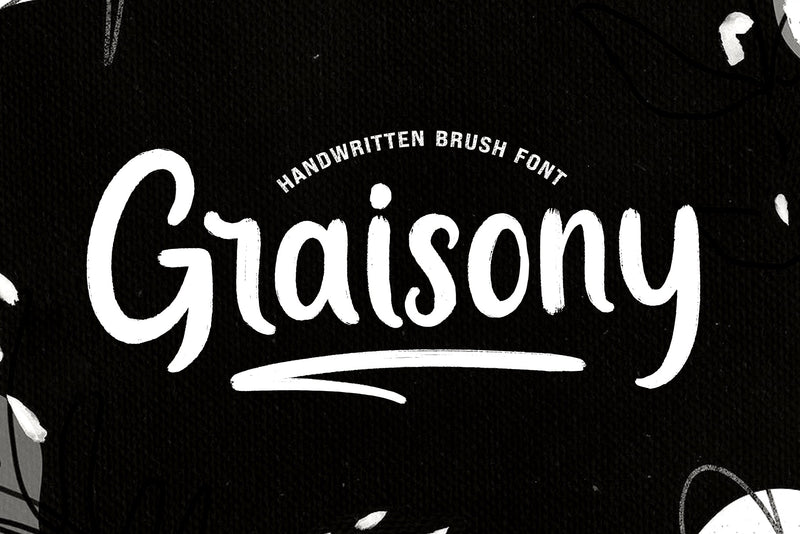
Graisony - Handwritten Brush Font
Graisony is a handwritten brush font for SVG designs, shirts, crafts, websites, farmhouse decor, Christmas designs, branding, logos, save the date cards, wedding invitations, and more.